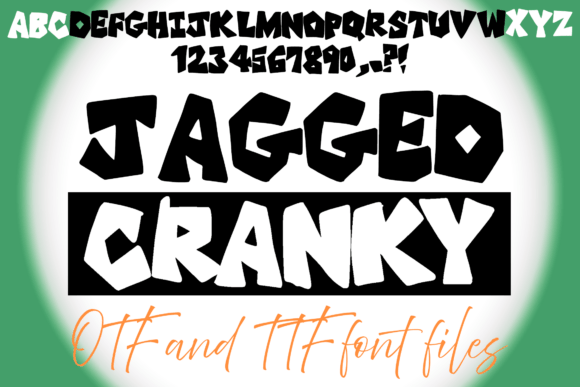
The Perfect Font for the Rebel in You
Have you ever stared at a blank page, frantically searching for the perfect font to convey the edgy vibe of your latest project? The cursor blinks, taunting you, as your mind wanders through a sea of sans-serifs and serifs. Suddenly, a spark of inspiration strikes, and you remember a font that’s been hiding in the depths of your font library – Jagged Cranky Font.
This bold, chaotic display font is the perfect companion for designers looking to add a rebellious twist to their work. With its sharp edges and raw energy, Jagged Cranky Font is the ultimate choice for edgy posters, underground music flyers, and Halloween graphics that demand attention. Whether you’re a seasoned designer or a newcomer to the world of typography, Jagged Cranky Font is a valuable addition to your toolkit, guaranteeing to make your designs stand out from the crowd.
Jagged Cranky Font Key Features
- Font Family: Jagged Cranky Font is a sans-serif typeface designed for digital use.
- Unique Characteristics: The font features a distressed, hand-crafted look with rough edges and irregularities, giving it a unique, cranky feel.
Jagged Cranky Font Review
I’ve had the chance to work with the Jagged Cranky Font, and overall, it’s a unique addition to any designer’s toolkit. ✨ The font’s quirky, hand-drawn feel is perfect for adding a touch of personality to projects that need a bit of whimsy. It’s great for use in headings, titles, and other text elements where you want to make a statement.
- Works well for: headings, titles, and other text elements where you want to add a touch of personality
- ✨ Great for use in branding, advertising, and editorial design
- Has a unique, hand-drawn feel that sets it apart from more traditional fonts
However, there are a few limitations to consider. ⚠️ The font can be difficult to read at smaller sizes, and the irregular letterforms can make it challenging to use in body text. Additionally, the font’s character set is limited, which may not be suitable for projects that require a wide range of characters.
- ⚠️ Can be difficult to read at smaller sizes
- Irregular letterforms can make it challenging to use in body text
- Limited character set may not be suitable for all projects
Overall, I think the Jagged Cranky Font is a great addition to any designer’s toolkit, but it’s best used in moderation. With a bit of creative restraint, you can use this font to add a touch of personality to your projects without overwhelming the viewer.
Jagged Cranky Font: A Practical Application Guide
Use the Jagged Cranky Font to add a touch of edginess to your designs. Pair it with bold colors and geometric shapes for a striking visual effect. Experiment with different font sizes and styles to create a unique look.
The Jagged Cranky Font is perfect for:
- Rock music and arts-related projects
- Edgy marketing materials and social media graphics
- Street art and graffiti-inspired designs